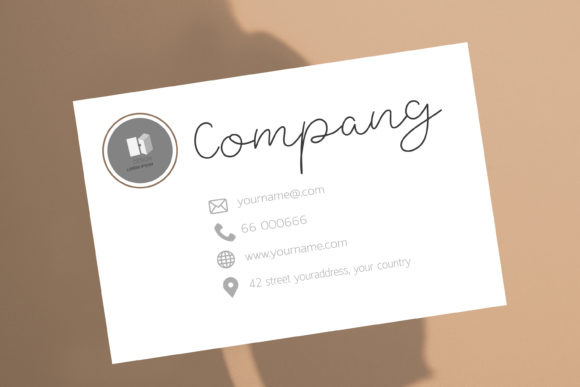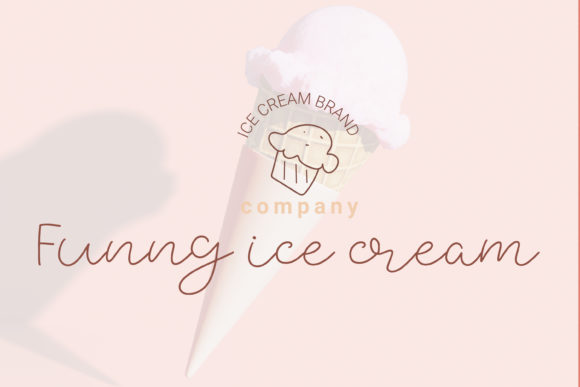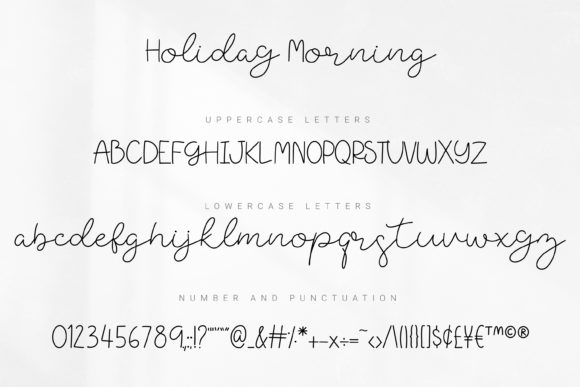
Holiday Morning Font
About Holiday Morning Font
Holiday Morning is a cute, round-lettered handwritten font, designed to level up each of your creative ideas. Its simple and flowing style make this font incredibly versatile, fitting to a wide variety of contexts.